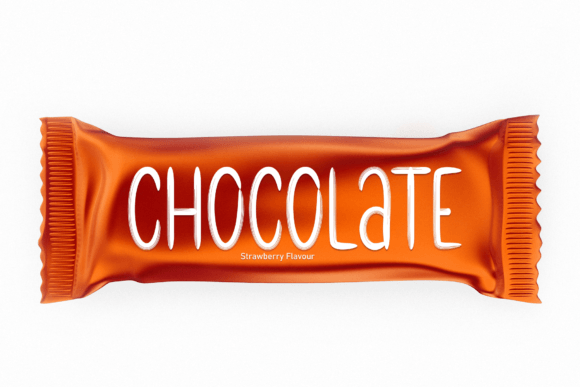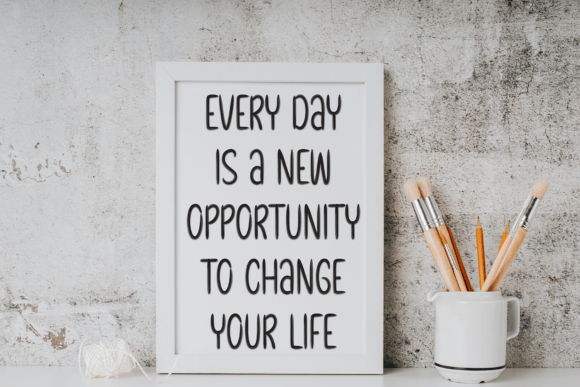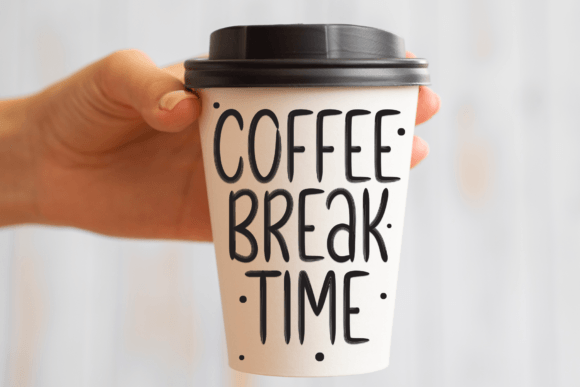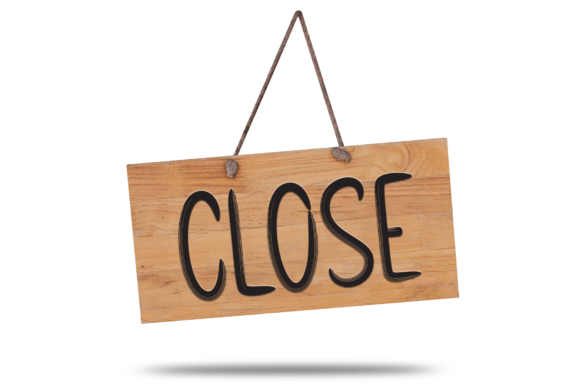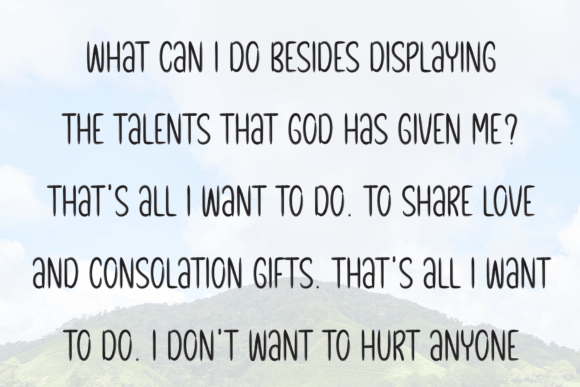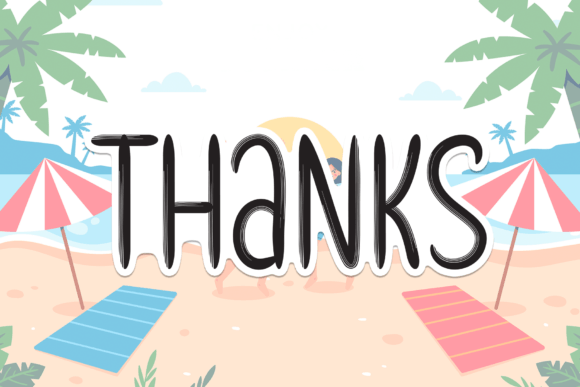
Discover the Sweet Charm of Enjoy Summer Font
Ah, summer is here, and you know what that means – weddings, outdoor gatherings, and a whole lot of creative projects to work on! As designers, crafters, and creative hobbyists, we’re always on the lookout for the perfect font to capture the essence of the season. I still remember the time I was working on a wedding invitation project, and I just couldn’t find the right font to make it feel festive and personal. That’s when I stumbled upon Enjoy Summer Font, and it instantly became my go-to for all things summer!
A Sweet and Friendly Handwritten Display Font
Enjoy Summer Font is a beautiful, handwritten display font that’s perfect for adding a touch of whimsy to your designs. With its sweet and friendly vibe, this font is ideal for writing wedding invitations, cards, or any other design that might need a fun touch! ✨
What makes Enjoy Summer Font truly special is its ability to evoke a sense of warmth and playfulness. Whether you’re designing a summer-themed party invitation or a heartfelt wedding card, this font is sure to bring a smile to your face and make your project stand out.
- ✨ Cute and fun: Enjoy Summer Font is perfect for adding a playful touch to your designs.
- ✅ Easy to read: Despite its handwritten nature, this font is surprisingly easy to read, even in smaller sizes.
- 💕 Versatile: Enjoy Summer Font works beautifully for a wide range of projects, from wedding invitations to party flyers.
While Enjoy Summer Font is an amazing addition to any design project, there are a few things to keep in mind: 🤔
- ⚠️ Limited use in body text: Due to its decorative nature, Enjoy Summer Font might not be the best choice for longer blocks of text.
- ⚠️ Some letters may appear similar: As with many handwritten fonts, some letters may appear similar, which can make it tricky to read in certain contexts.
The Designer Inspiration Behind Enjoy Summer Font
Enjoy Summer Font was designed with the intention of capturing the carefree spirit of summer. The designer aimed to create a font that’s both sweet and friendly, perfect for adding a personal touch to your designs. While the exact design process might be a mystery, it’s clear that Enjoy Summer Font was crafted with love and attention to detail.
Q: What type of projects is Enjoy Summer Font best suited for?
A: Enjoy Summer Font is perfect for wedding invitations, cards, party flyers, and any other design that needs a fun, playful touch!
Q: Can I use Enjoy Summer Font for body text?
A: While Enjoy Summer Font is beautiful, it’s not ideal for longer blocks of text. Its decorative nature makes it better suited for headlines, titles, and short paragraphs.